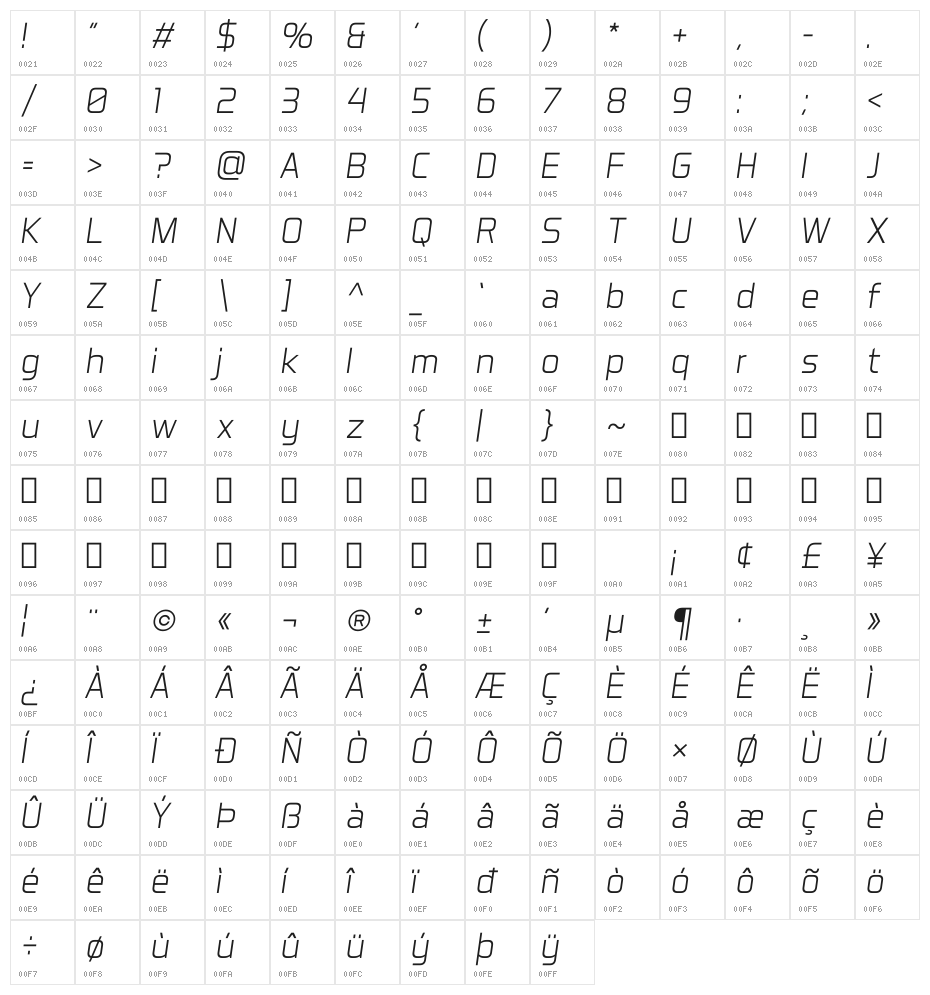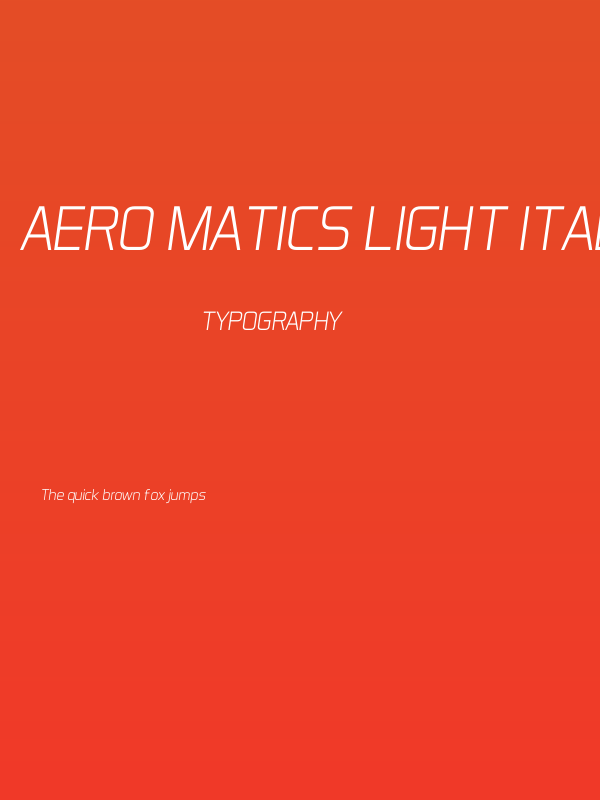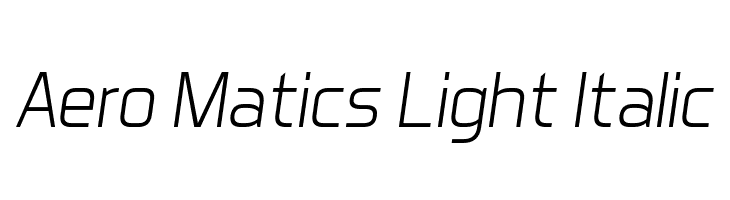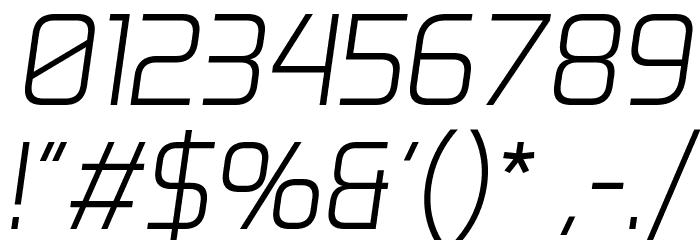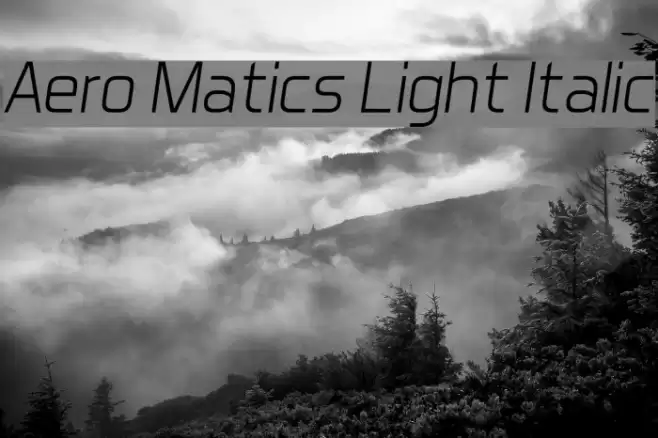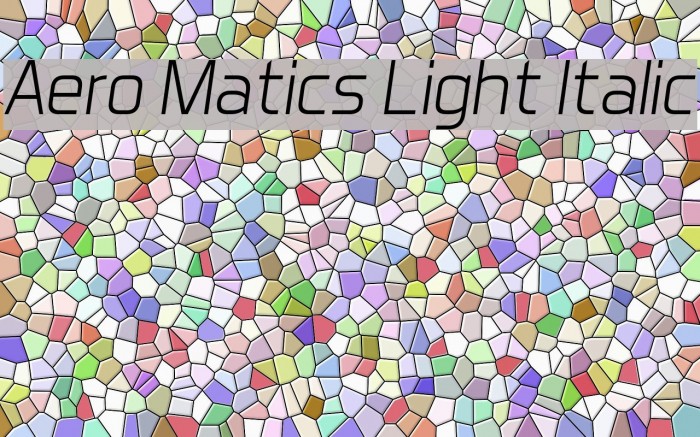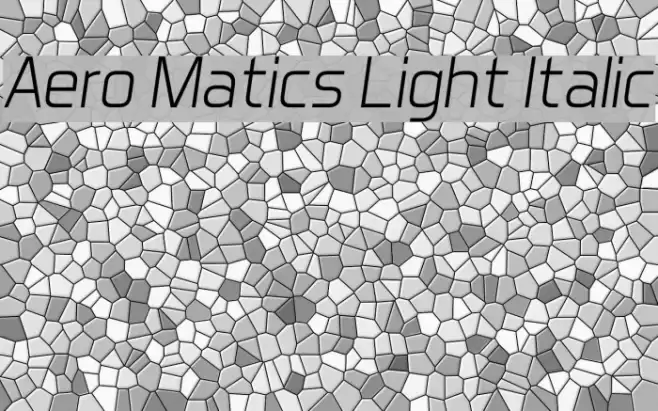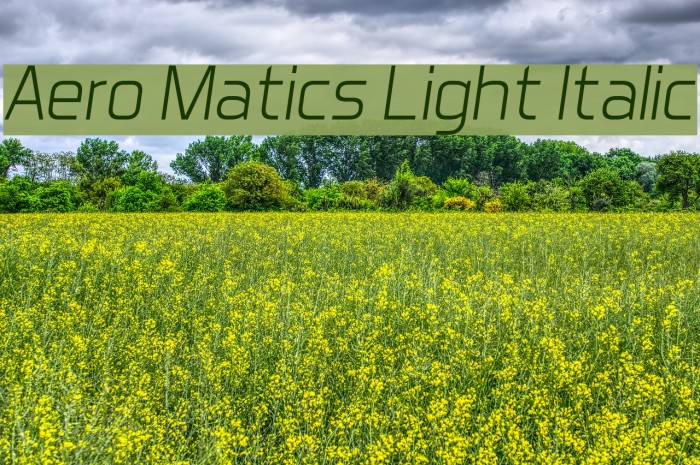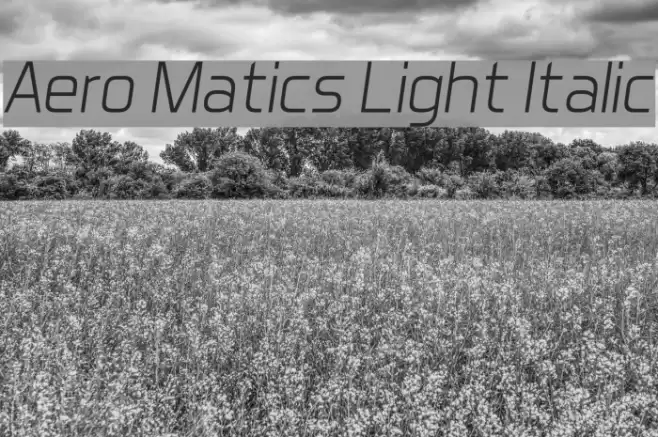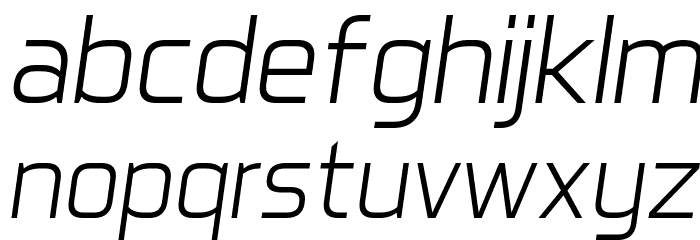
Aero Matics Light Italic Font
Aero Matics Light Italic Description
This font features a sleek and modern design with a light weight and italicized style. The characters are slightly condensed, giving it a streamlined and aerodynamic appearance. The strokes are consistent and smooth, with a low contrast between thick and thin lines. The overall look is clean and professional, making it suitable for a variety of applications. The uppercase and lowercase letters maintain a uniform style, while the numerals and special characters are designed to complement the alphabetic characters seamlessly.